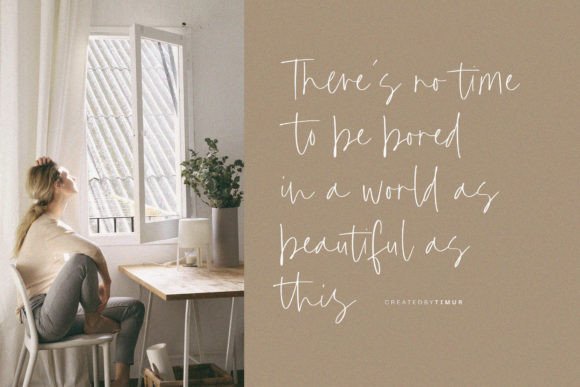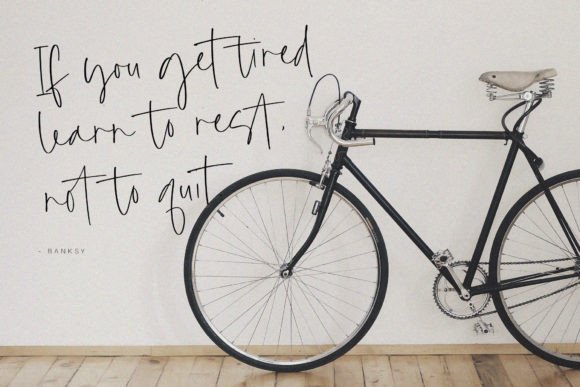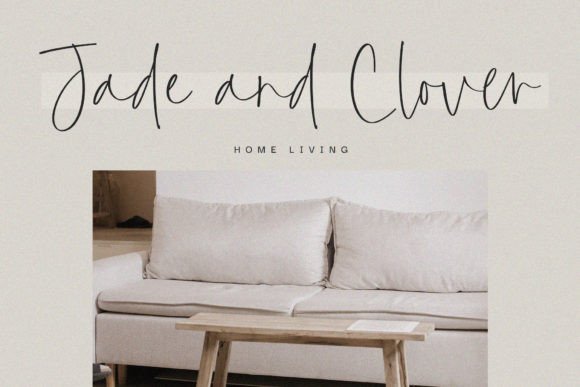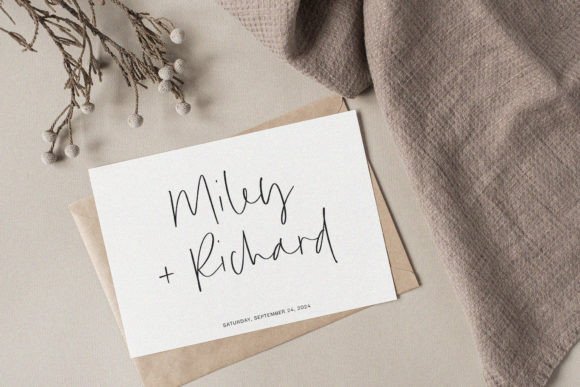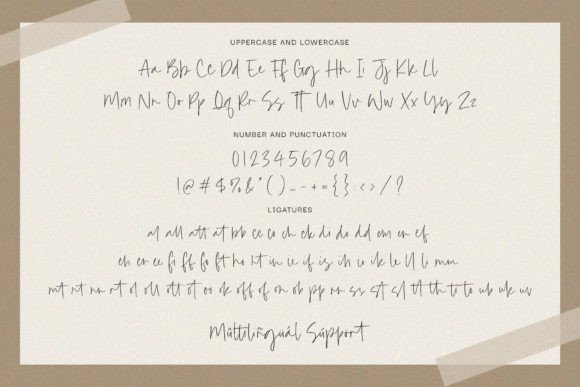
Discover the Hidden Beauty Font: Elevate Your Designs
Have you ever stumbled upon a font that instantly sparks a creative idea? For designers, this moment is pure magic. It’s the moment when the right typography can elevate an entire design and transport your message to the next level. For me, that moment came when I discovered the Hidden Beauty Font.
This clean and thin handwritten font is perfect for adding a touch of elegance to your product packaging, branding projects, magazines, social media, and even weddings. Its versatility makes it a valuable asset for designers looking to add a unique twist to their work. The Hidden Beauty Font is not just a pretty face; it’s a powerful tool that can help you express your words above the background and make a lasting impression on your audience.
Hidden Beauty Font Key Features
- Font Family: Hidden Beauty is a high-end, modern script font that offers a unique blend of elegance and sophistication.
- Unique Characteristics: Features a flowing, handwritten feel with subtle flourishes and intricate details, making it perfect for creative and artistic projects.
Hidden Beauty Font Review
Overall, I have mixed feelings about the Hidden Beauty Font. It has some unique qualities that make it stand out, but it also has some limitations that prevent it from being a top choice for designers.
- Unconventional beauty: The font has a unique, hand-crafted feel that adds character to any design. It’s perfect for projects that need a touch of whimsy or personality.
- Legibility: Despite its unusual design, the font is surprisingly legible, making it suitable for body text and other large blocks of text.
- Overuse: The font’s quirky design can make it feel overused or clichéd if used too extensively, which can detract from the overall design.
Overall, the Hidden Beauty Font is a unique and interesting addition to any design library. While it has some limitations, its unconventional beauty and customization options make it a great choice for designers who want to add a touch of personality to their projects.
The Hidden Beauty Font is perfect for:
- Stationery and business cards
- Artistic and creative projects